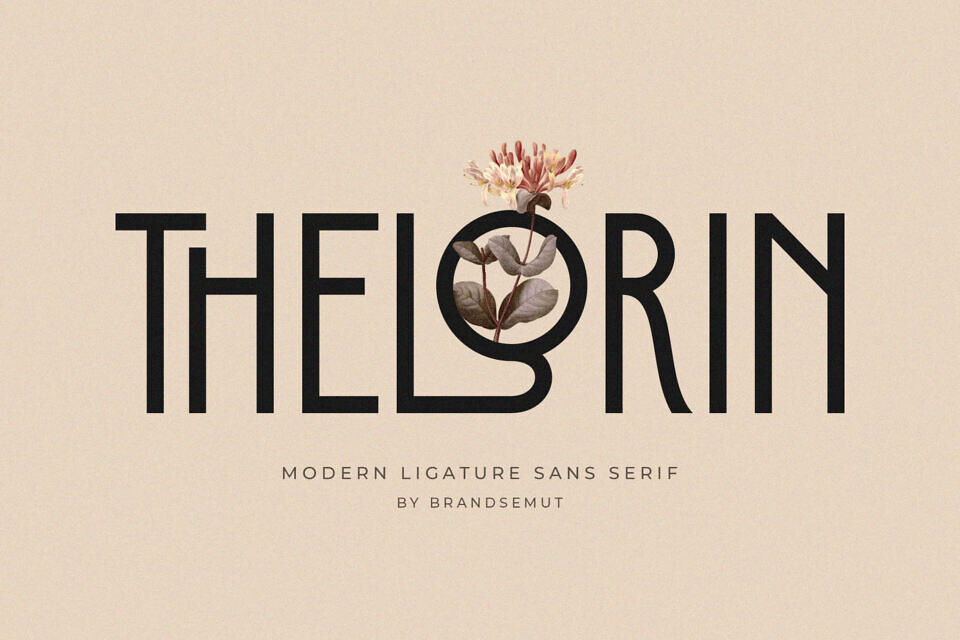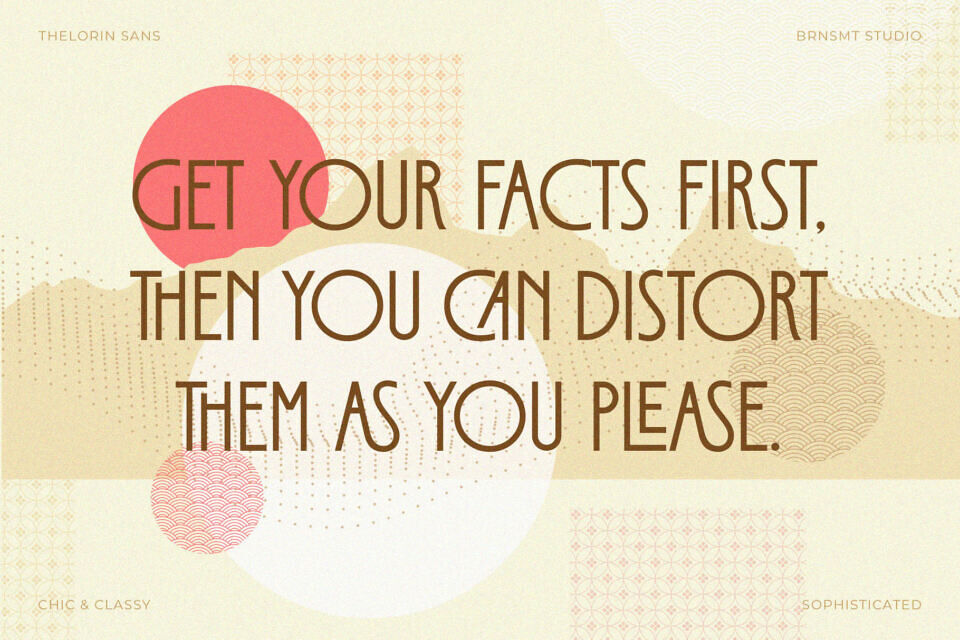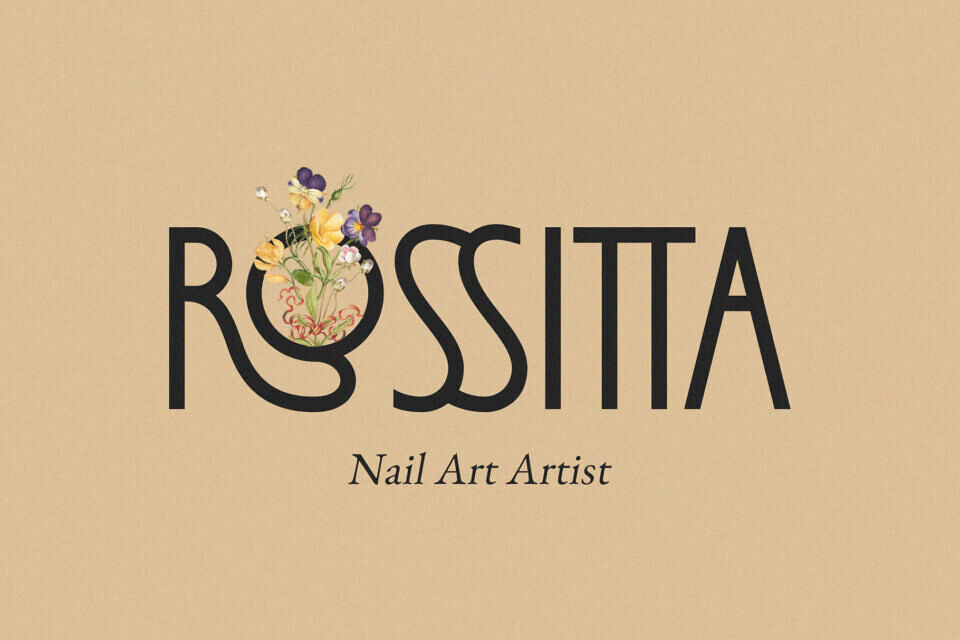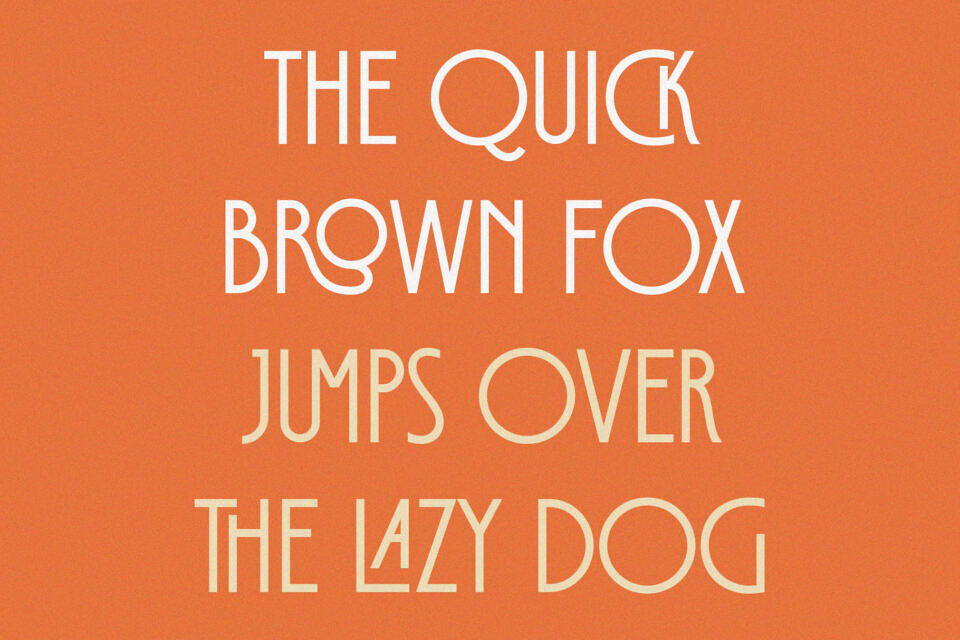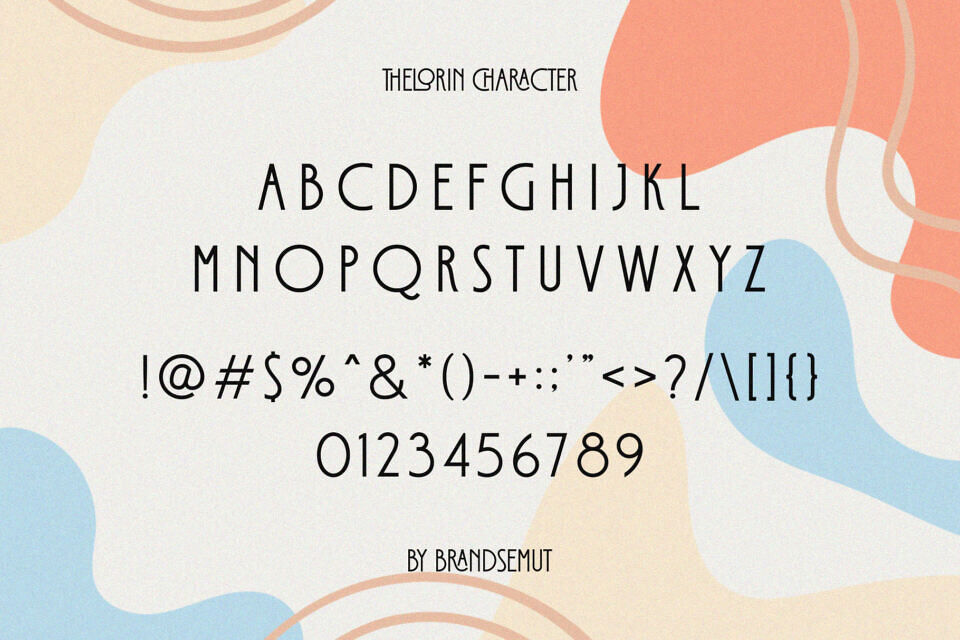
Thelorin Font
Introducing Thelorin Modern Ligature Sans. Thelorin is a modern and elegant font, best used as a display for headings, logos, branding, magazines, product packaging and invitations. Thelorin come with clean lines and smooth curves give any project an extra touch of class.